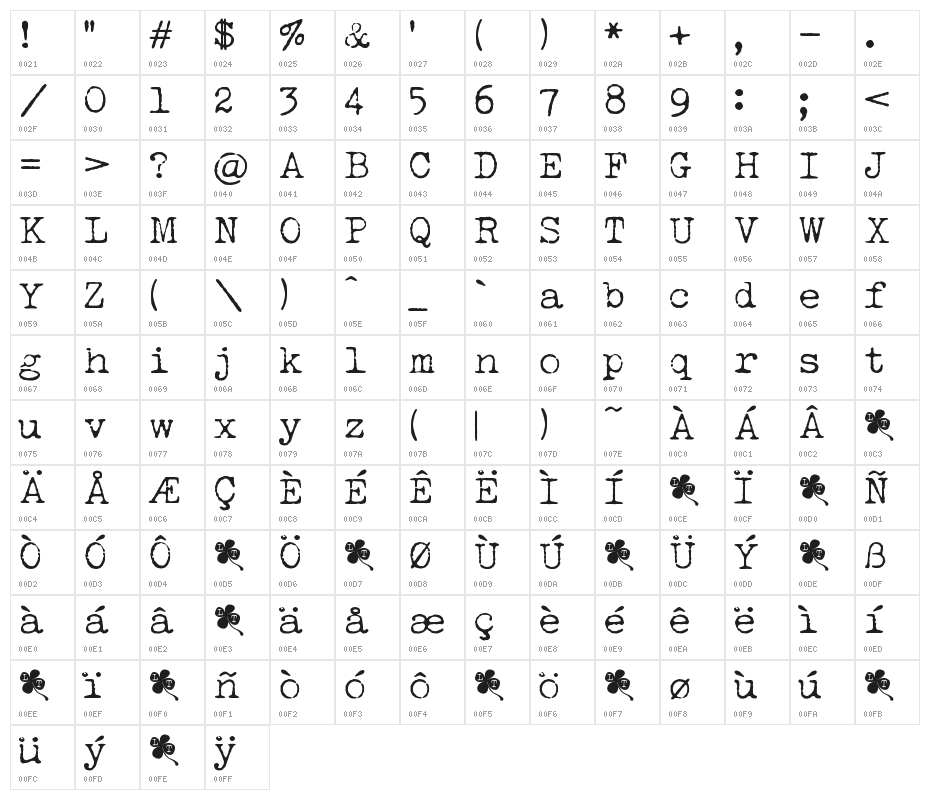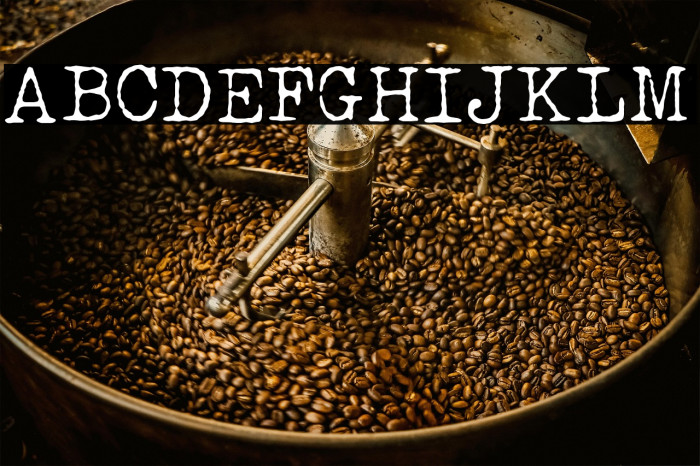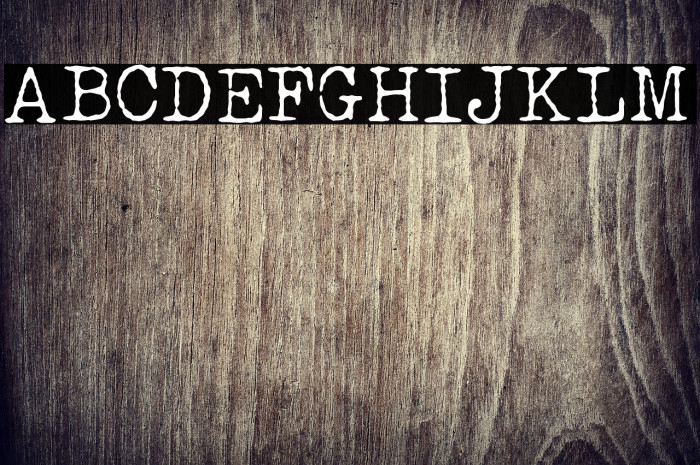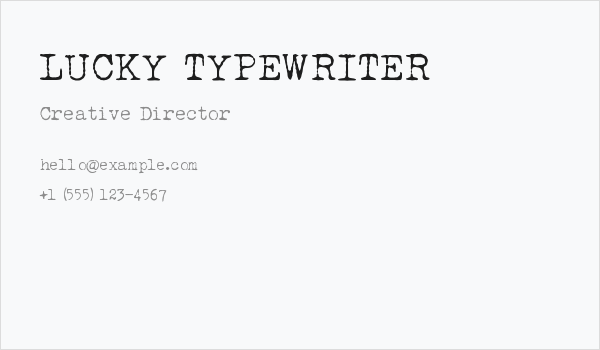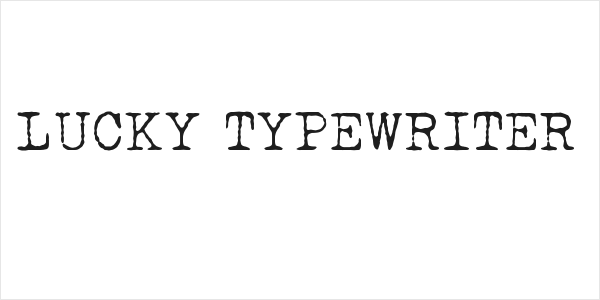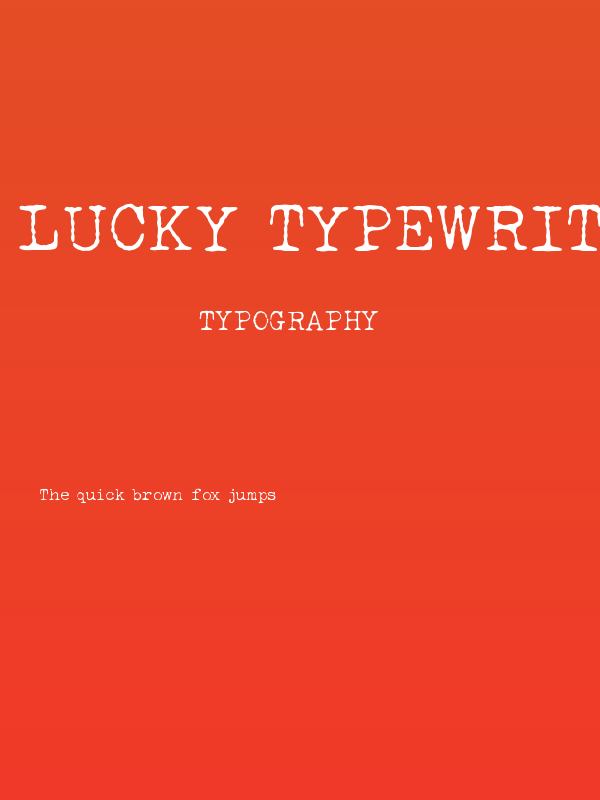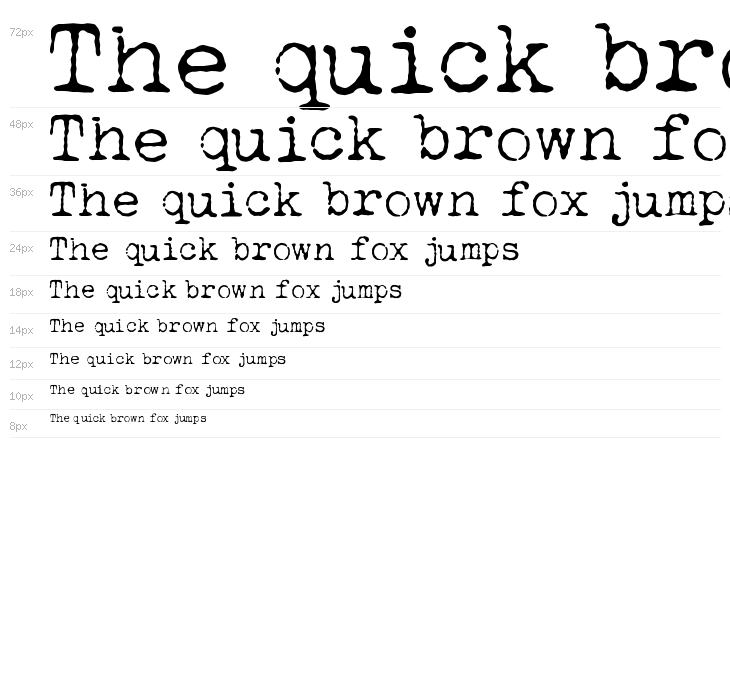
LUCKY TYPEWRITER Font
LUCKY TYPEWRITER Description
This font embodies the classic aesthetic of vintage typewriters, featuring a monospaced design with a slightly distressed and textured appearance. Each character is distinct, with subtle variations that mimic the imperfections of mechanical typewriting. The uppercase letters are bold and prominent, while the lowercase letters maintain a consistent style that complements the overall look. Numbers and special characters are crafted with the same attention to detail, ensuring a cohesive appearance across all text. The font's nostalgic charm makes it ideal for projects that require a retro or analog feel.
| Proposed Projects | Ideal for retro-themed designs, typewriter-style documents, vintage posters, and creative projects that require an analog touch. |